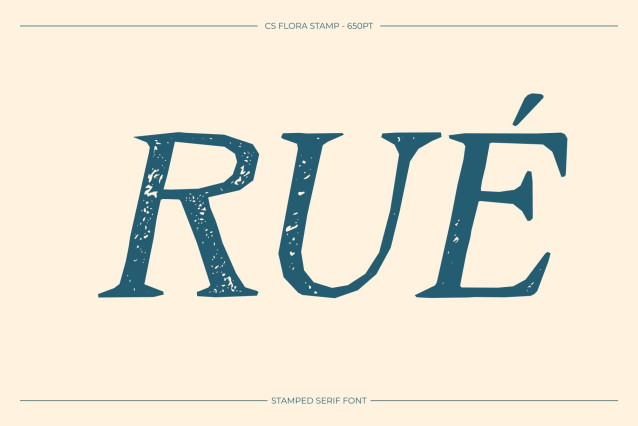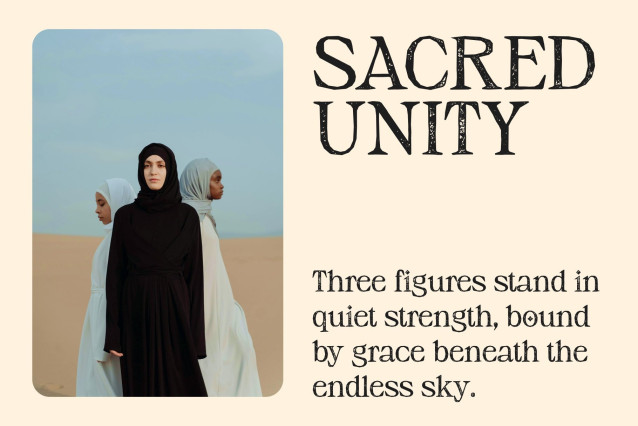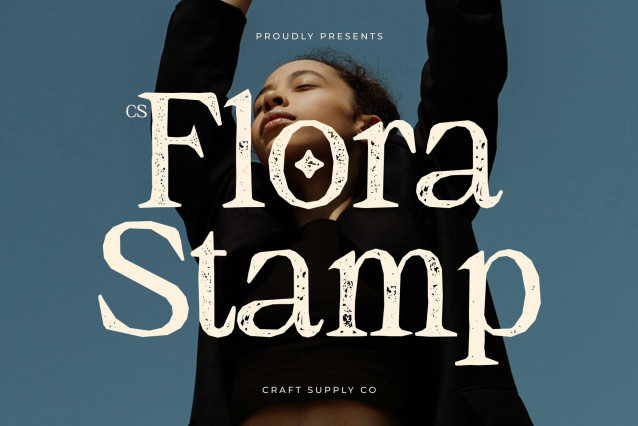
CS Flora Stamp Font
CS Flora Stamp – Modern Elegance with Classic Sophistication
Contemporary Form with Classic Serif Beauty
This font is a modern serif font that masterfully blends traditional serif elegance with a contemporary design approach. Its graceful lines and balanced proportions bridge timeless sophistication with modern clarity, creating a typeface that feels refined, professional, and visually polished.
Graceful and Professional Presence
Meticulously crafted letterforms and harmonious proportions enhance readability while maintaining a luxurious and polished tone. This font delivers a confident sense of elegance, making it perfect for designs where professionalism and style must coexist seamlessly.
Stamp Texture with Vintage Character
Enhanced with a distinctive stamp effect, this font gains a beautifully aged personality. The textured, ink-pressed appearance introduces subtle imperfections inspired by traditional printing techniques, adding depth, authenticity, and a refined handcrafted charm to every letterform.